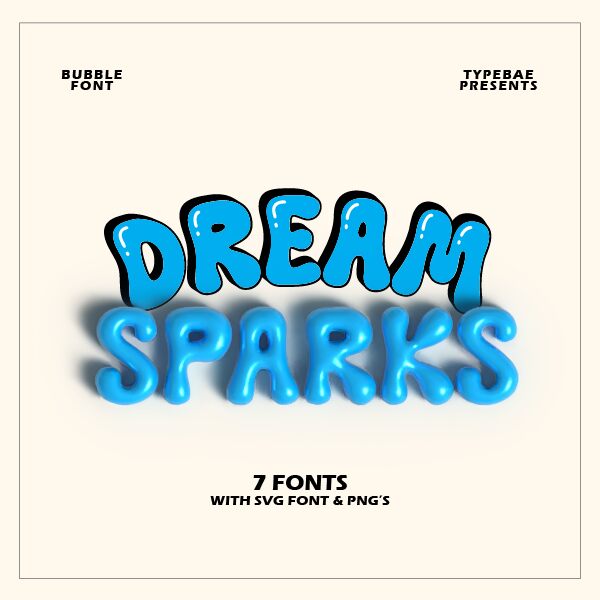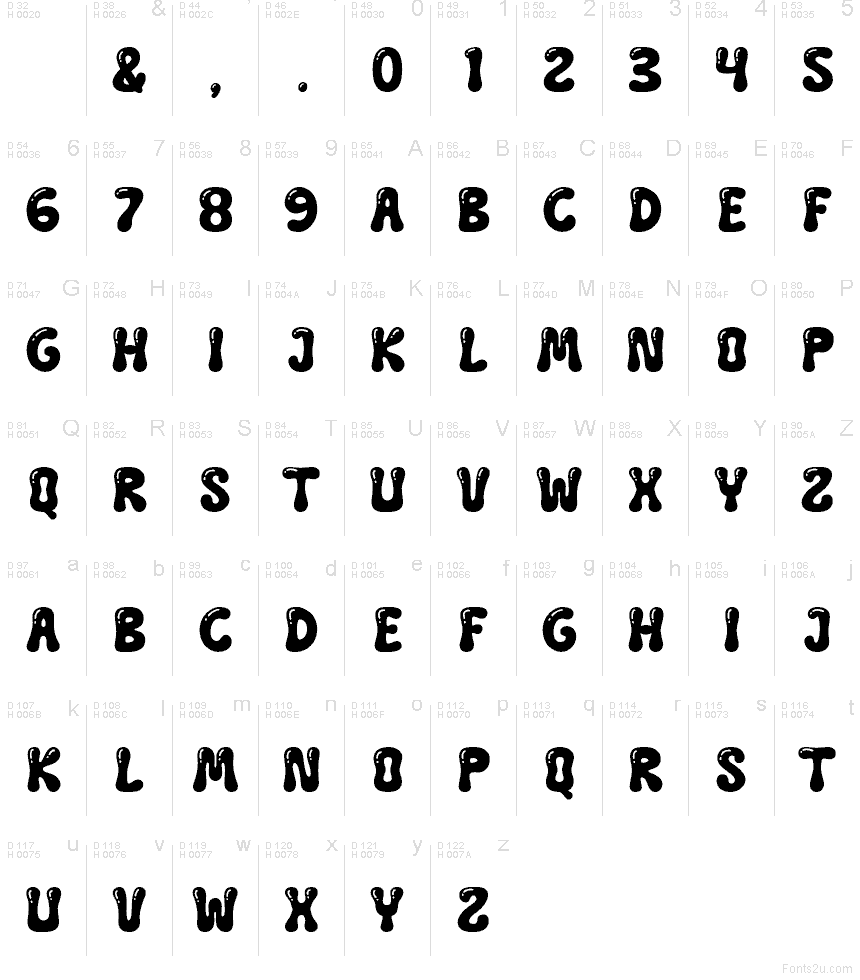
Dream Sparks Shiny
Dream Sparks Shiny font by Iqbal Pauji is a free groovy bubble font, dripping with glossy, puffy shapes that feel like vinyl stickers fresh off the sheet. The rounded letters pack inky weight, with little shine-like holes that make the wordmark look wet, bouncy, and loud without turning messy.
Using Dream Sparks Shiny, you’ll get instant punch on sticker designs, kids’ branding, candy or snack packaging, playful logos, YouTube thumbnails, party invites, festival posters, and tee graphics. Keep it big for headlines so the “shiny” details read clearly, and pair this free font with a clean geometric sans for the supporting text.